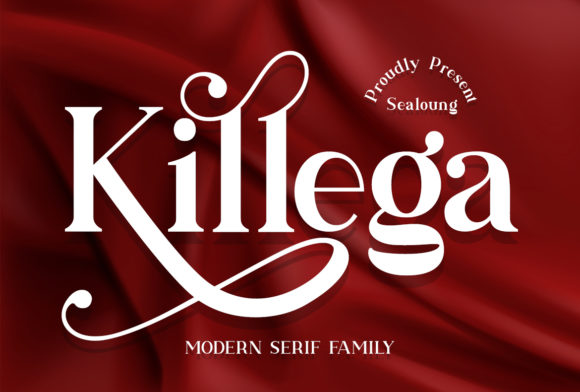
**Dive into the World of Killega: The Serif Font That Will Ignite Your Magazine Dreams**
Welcome to the realm of Killega, a captivating serif font that will elevate your magazine creations to new heights. With its bold strokes and modern aesthetic, Killega is the epitome of timeless elegance, ready to make your words dance on the page with captivating grace.
Whether you're crafting captivating covers that demand attention or weaving enchanting stories that flow effortlessly, Killega's versatility knows no bounds. Its meticulously crafted curves and sharp edges intertwine seamlessly, creating a visual harmony that will captivate your readers from the very first glance.
Indulge in the luxury of a font designed to turn your magazine aspirations into stunning realities. Let Killega be your guiding light, leading you through a world where words and design converge in a symphony of beauty and impact.
Don't settle for ordinary fonts that fade into the background. Embrace the allure of Killega and watch as your magazine transforms into a masterpiece that commands attention and lingers in the minds of your audience.
**Key Features:**
* An exquisite serif font with a bold and modern touch
* Designed meticulously to empower your creative vision
* Versatility that seamlessly adapts to a myriad of magazine layouts
* Crafted by Sealoung, renowned for exceptional font artistry
**Why Choose Killega?**
* Create magazine covers that leap off the shelves, captivating readers with their irresistible charm
* Craft body text that flows with effortless grace, guiding readers through your stories with unwavering engagement
* Design headers and subheaders that command attention, setting the stage for impactful content
* Unleash your creativity and watch as Killega transforms your magazine into a visual feast for the eyes